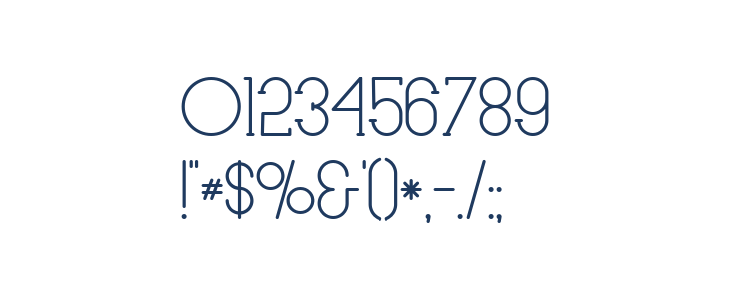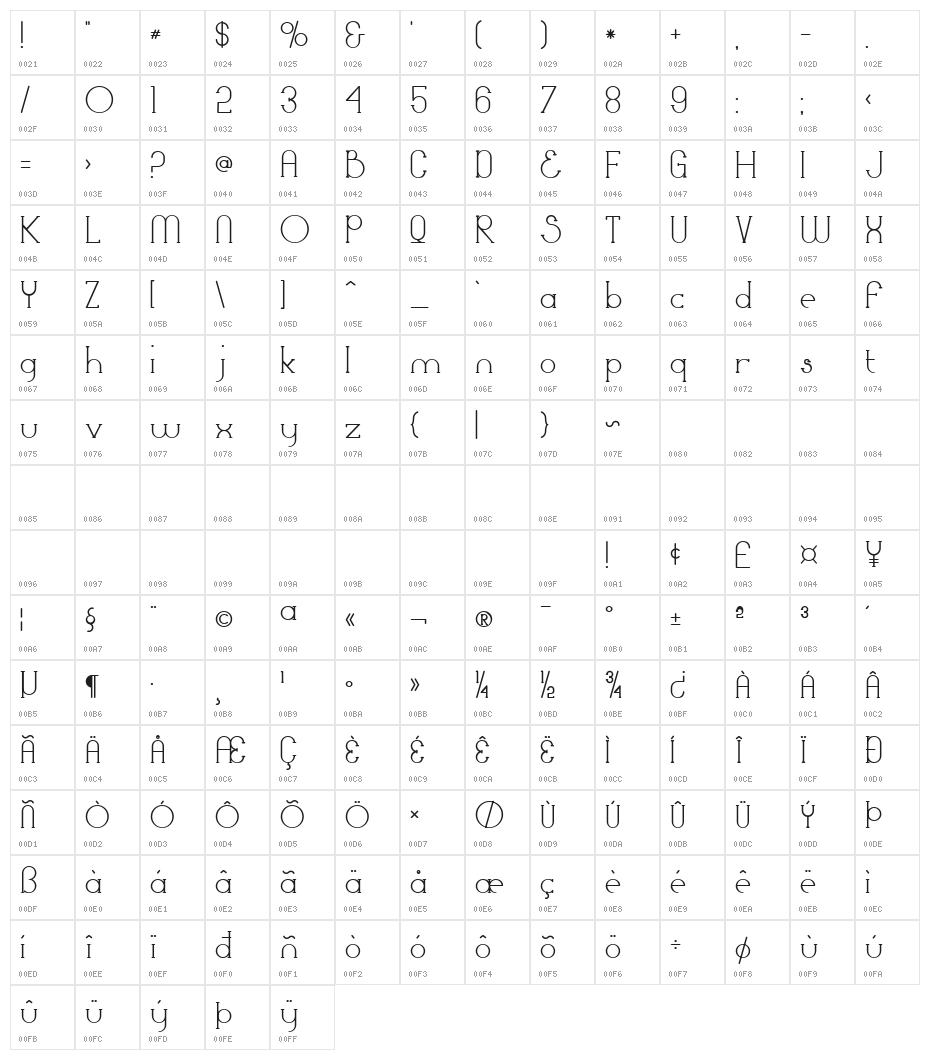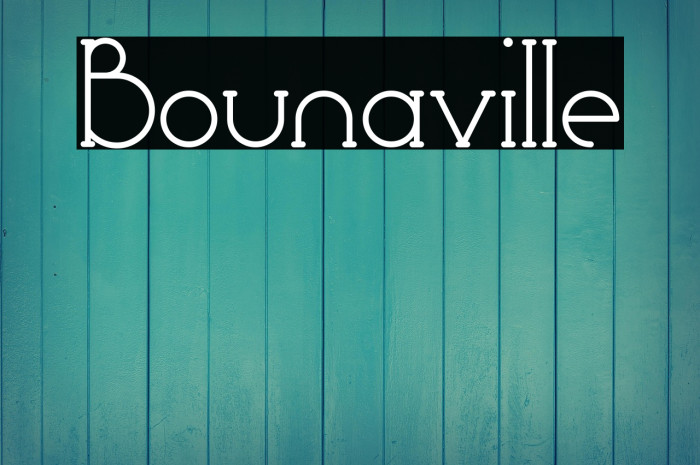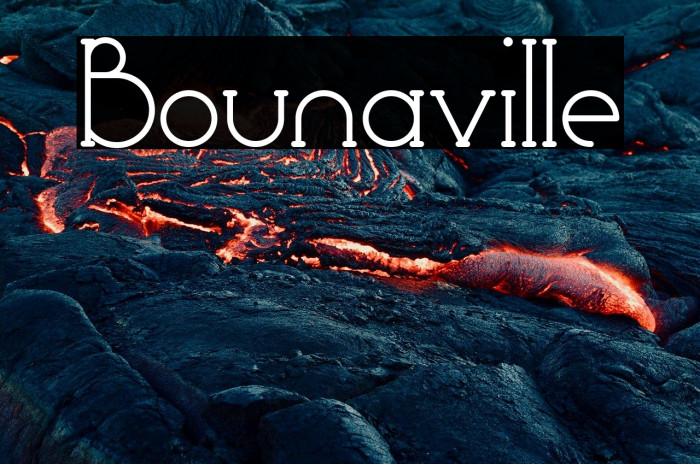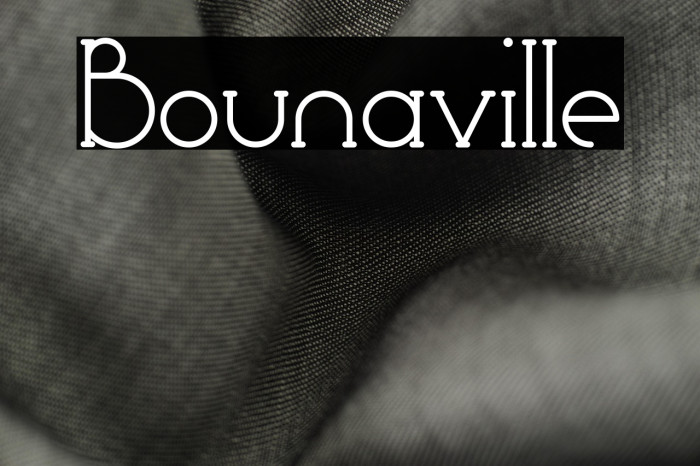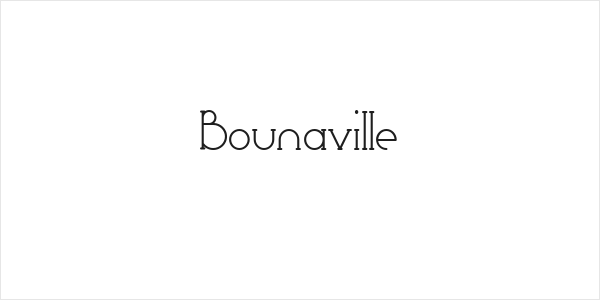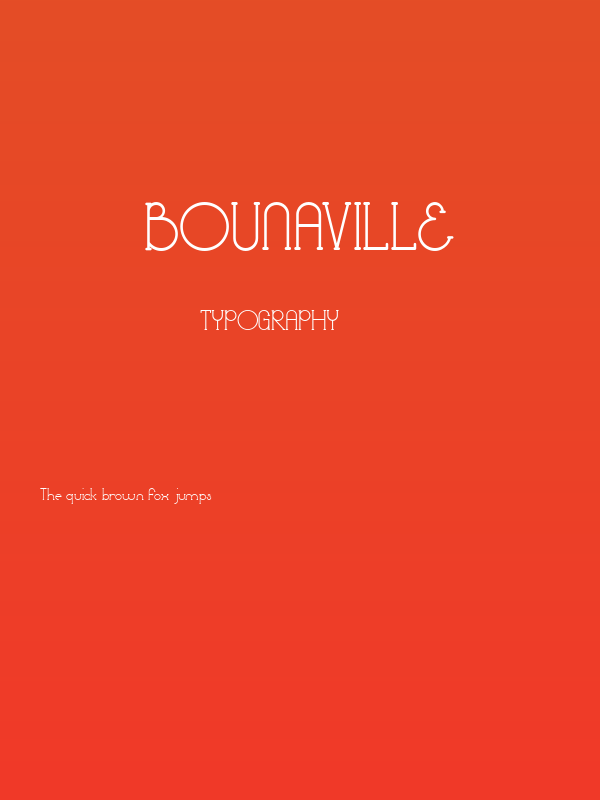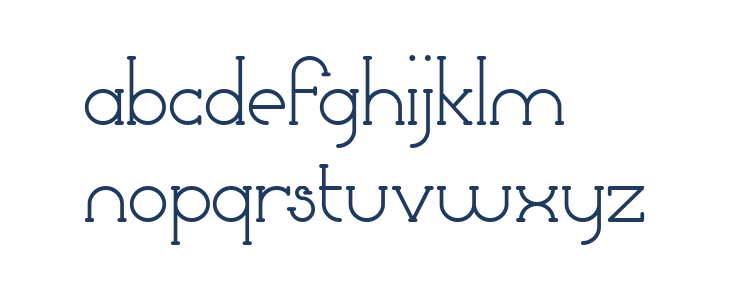
Bounaville Font
Bounaville Description
This font features a unique blend of modern and vintage elements, characterized by its thin, elongated strokes and rounded terminals. The uppercase letters exhibit a tall, narrow structure with a consistent stroke width, giving it a sleek and elegant appearance. The lowercase letters maintain a similar style, with some characters like 'g' and 'y' having distinctive loops that add a playful touch. The numerals are clean and straightforward, matching the overall aesthetic. Special characters are well-integrated, maintaining the font's cohesive look. This font's design is both stylish and functional, making it suitable for a variety of applications.
| Overall Style | Modern, Elegant |
| Use Case | Headlines, Logos, Editorial Design |
| Proposed Projects | Ideal for branding, editorial design, fashion magazines, and luxury product packaging. |